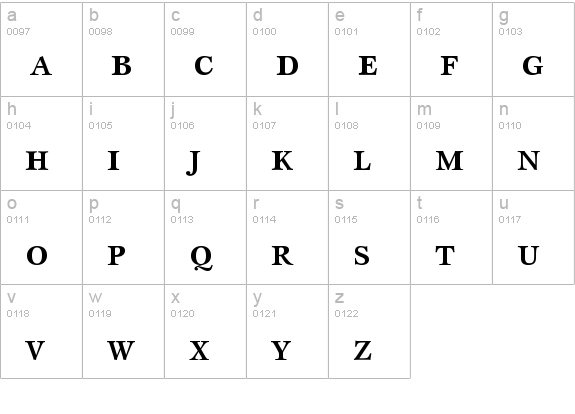
EspritSCEF-Medium Font Details
EspritSCEF-Medium is a balanced, medium-weight variant in the EspritSCEF typeface family \xE2\x80\x94 well suited to sub-headlines, navigation, and balanced editorial work.
EspritSCEF-Medium is a sophisticated and elegant font that exudes a sense of modernity and style. With its clean lines and contemporary design, this font is perfect for a wide range of creative projects, from branding to editorial design. The medium weight strikes the perfect balance between boldness and delicacy, making it versatile for both display and body text. What sets EspritSCEF-Medium apart is that it is available for free download at FontsMarket.com. This means that you can easily access this high-quality font without any cost, making it a valuable addition to your font library. Whether you're a designer, a business owner, or a creative enthusiast, EspritSCEF-Medium offers a unique and professional touch to your projects. Download it today and elevate your designs with this exceptional typeface.